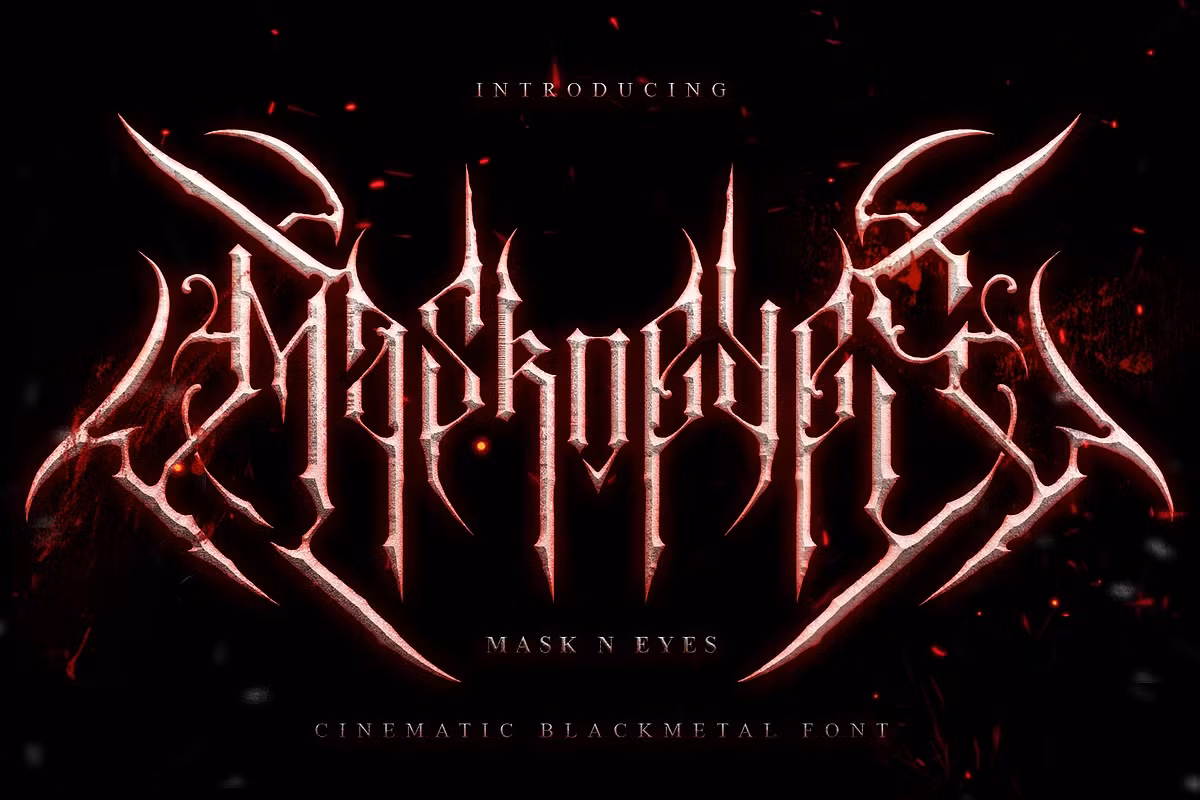
MasknEyes Cinematic Blackmetal Font Free Download
MasknEyes Cinematic Blackmetal Font Free Download is a dark and intense typeface inspired by the gritty, raw energy of black metal and cinematic visuals. Perfect for album covers, posters, movie titles, and heavy branding, this font brings a bold, edgy vibe to any project. Please note that you must purchase this font for commercial use, but it is available as a free download for testing purposes. Unleash the power of MasknEyes Cinematic Blackmetal Font Free Download, and give your designs a dramatic, fierce edge that demands attention.